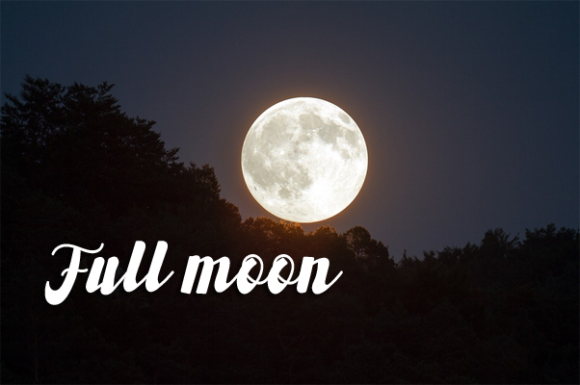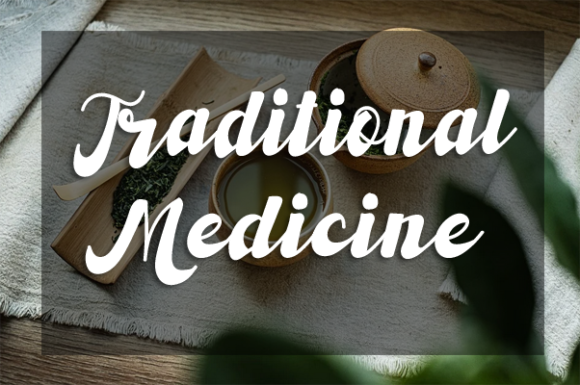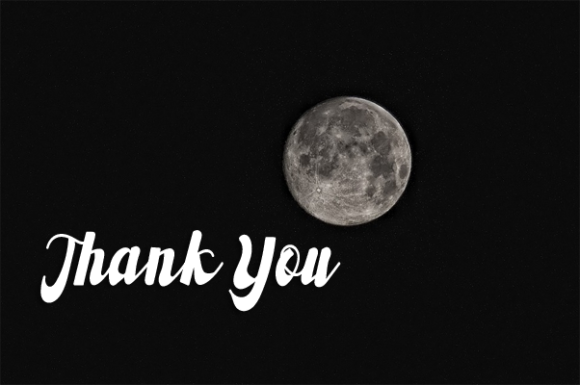
Vintage King Font
About Vintage King Font
Vintage King is a delicate and elegant handwritten font. Its distinct and well rounded letters make this font a masterpiece. Fall in love with its incredibly versatile style and use it to create spectacular designs!